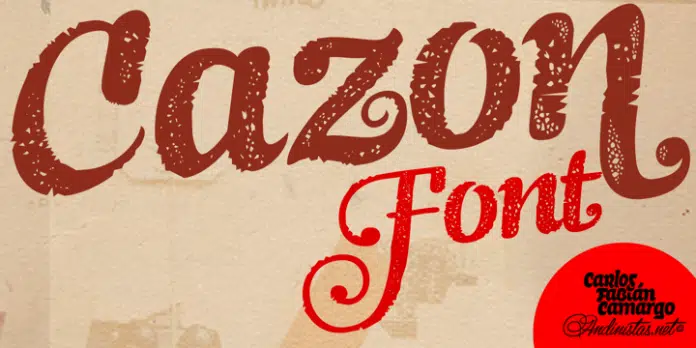
Cazon Font is perfect for ocean-themed branding, marine conservation campaigns, seafood restaurant logos, aquatic sports events, beach resort signage, fishing equipment packaging, nautical adventure marketing, coastal tourism promotions, underwater exploration graphics, and maritime cultural projects.
Cazon Font is exciting because it captures the powerful energy and mysterious depths of ocean life through dynamic letterforms that evoke marine strength, aquatic movement, and oceanic adventure with commanding presence. This fluidly designed typeface combines maritime aesthetics with contemporary functionality, making it perfect for brands that want to communicate ocean power, marine authenticity, and connection to the vast mysteries of underwater worlds.
The Cazon Font family includes dynamic weights with ocean-inspired character styling, featuring wave-influenced design elements and marine decorative variations. The font showcases aquatic design details, oceanic proportions, and maritime character characteristics that create a comprehensive typographic system for water-related and marine brand applications.
Cazon Font Free Download provides designers with access to premium marine typography that brings authentic ocean character to contemporary aquatic design projects. This expertly crafted typeface has been developed to capture the strength and mystery of ocean predators while ensuring optimal performance in marine marketing applications. The font's powerful character and aquatic appeal make it ideal for maritime brands and ocean-focused organizations.
The oceanic sophistication of Cazon Font makes it an invaluable tool for marine companies, coastal businesses, and aquatic organizations that need typography capable of communicating ocean strength and maritime authenticity. The font's dynamic character helps establish immediate associations with marine power, oceanic adventure, and underwater exploration that appeal to ocean enthusiasts and maritime professionals.
Seafood restaurants, marine equipment manufacturers, and coastal tourism companies consistently choose Cazon Font for its ability to convey ocean power and maritime sophistication through typography. The font excels in applications where establishing marine credibility and oceanic appeal are essential to brand positioning, making it particularly effective for fishing industry, marine sports, and coastal lifestyle brands targeting ocean-loving consumers.
This font's comprehensive character set includes ocean-inspired letterforms, marine numerals, aquatic punctuation marks, and maritime symbols that support authentic oceanic typography composition. The consistent marine styling maintains the ocean theme throughout all characters while ensuring professional readability across all maritime and aquatic design projects requiring Cazon Font Free Download functionality.